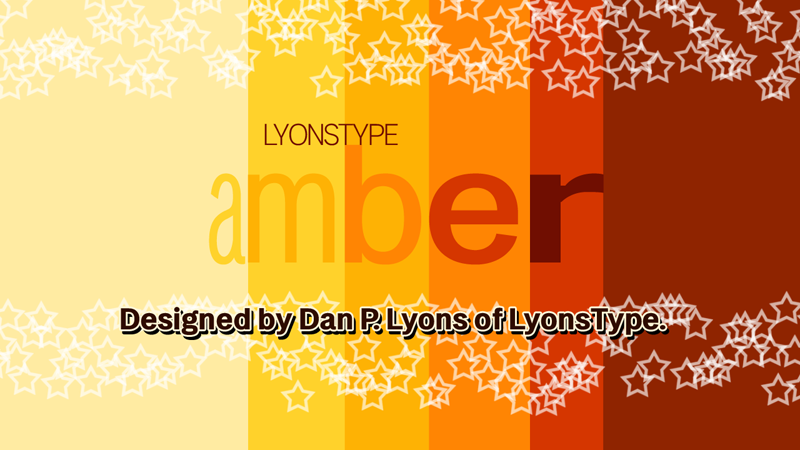
Preview and download LT Amber Font. Created by Daniel Lyons in Basic Sans serif styles with 100% Free license.
Font name: | LT Amber |
Author: | Daniel Lyons |
"A grotesk typeface is all you need to center around the imaginable inspiration of an amber gemstone." This font is labeled 100% free. No payment necessary. Just download, install and enjoy. If you want, feel motivated to credit the author (which is me) for the use of this font. YouTube thumbnails and videos, personal brochures, posters and anything of the like. Sincerely, LyonsType |